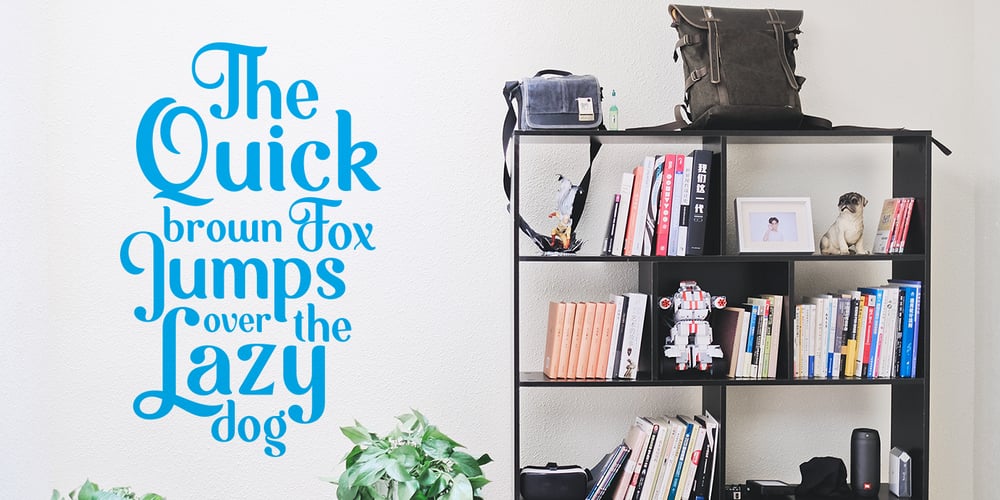
Mofita Font Family was designed by Alit Suarnegara and published by Alit Design. Mofita contains 4 styles and family package options. Introducing Möfita font This time we launched a formal font that is unique with the others. This font looks simple and elegant, the font is also very easy to read and suitable to be applied anywhere. Möfita fonts are supported with multilingual characters, and in the future, they will always be updated for additional characters and alternatives. This font is perfect for your collection for making designs that are elegant, unique and slightly formal. Very good for logotype, header texts, quote design, menu design, etc. We are sure you will not be sorry if you choose the Möfita font to be your collection. Thank you Alit